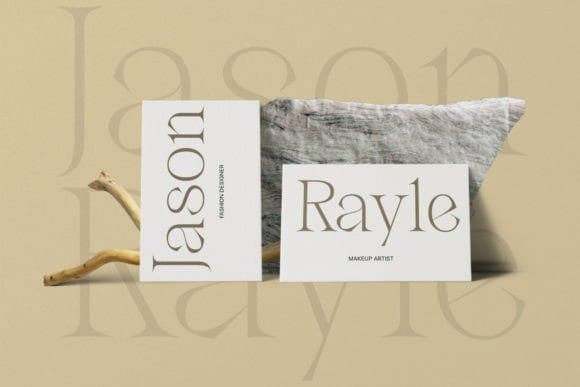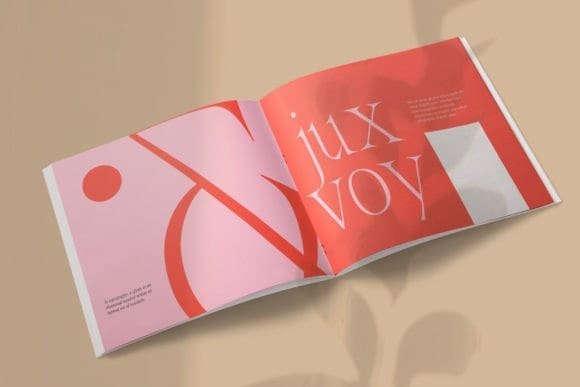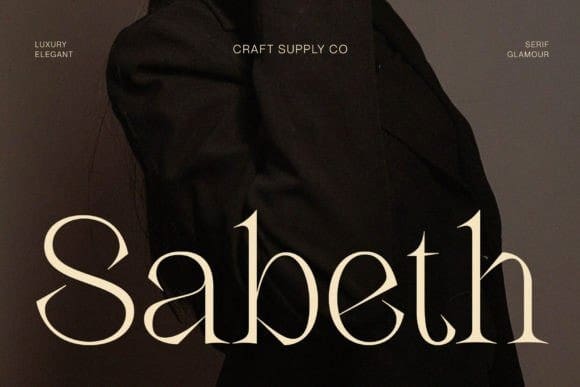
Sabeth Font
Sabeth Font – Elegant Typeface perfectly captures its essence, combining opulence, elegance, and timeless allure. It creates a captivating statement of refined luxury.
This typeface is ideal for greeting cards, packaging, brand identity, posters, or any purpose to make your design project look eye-catching and trendy. Feel free to play with this typeface!